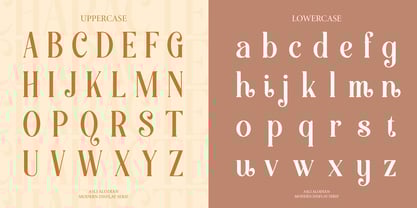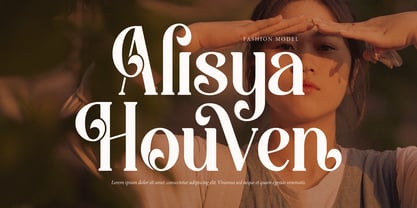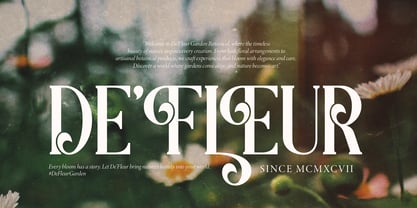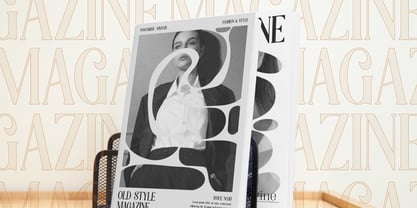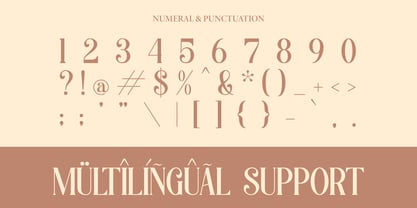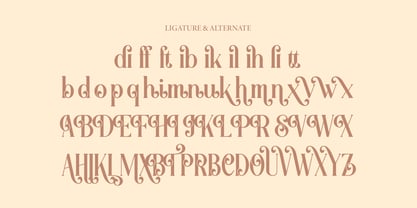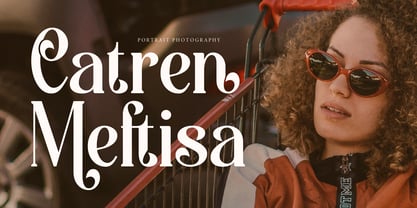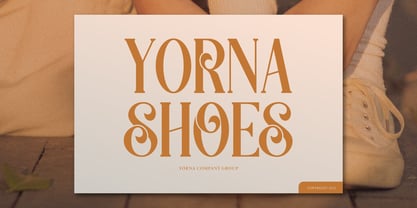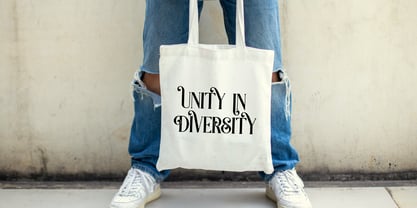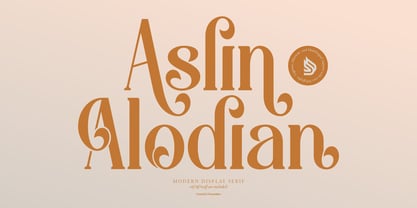
Aslin Alodian
by Denustudio
The Aslin Alodian Font Family was designed by Dede Nugraha and published by Denustudio. Aslin Alodian contains 2 styles and family package options. More about this family
Aslin Alodian | Modern Display Serif, from Denustudios, suitable for any projects such as: logos, branding projects, homeware designs, product packaging, mugs, quotes, posters, shopping bags, t-shirts, book covers, name card, invitation cards, greeting cards, label, photography, watermark, special events, and all your other lovely projects that need a Modern Display Serif taste.